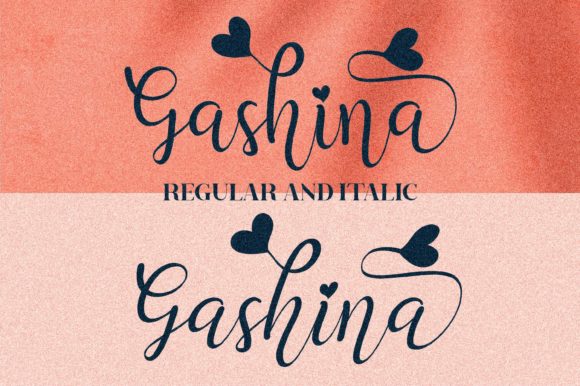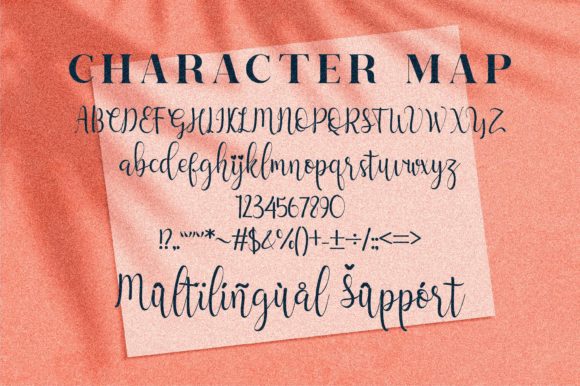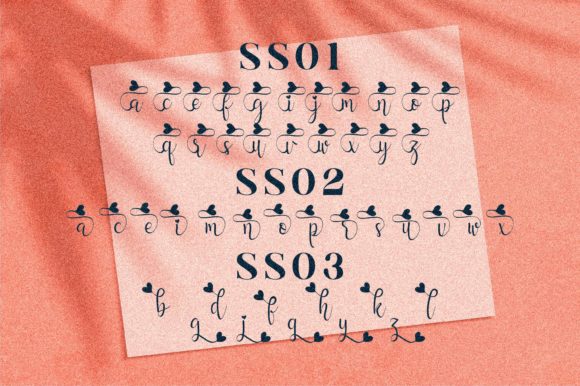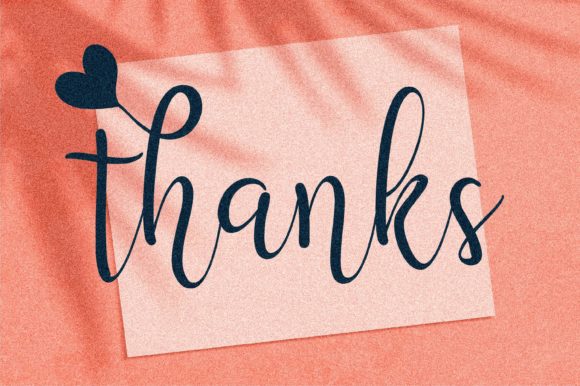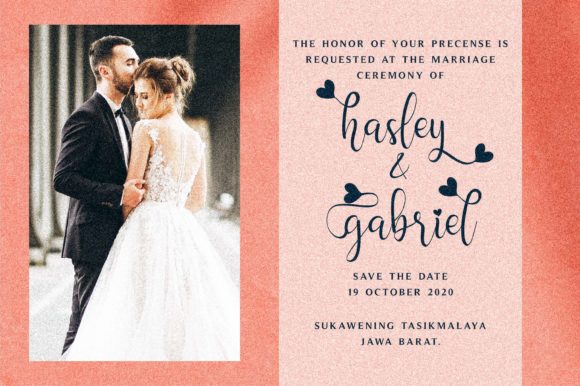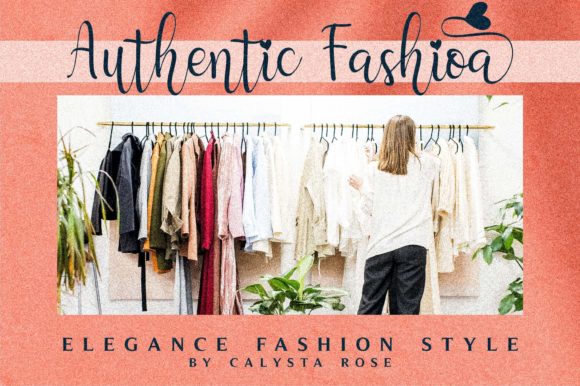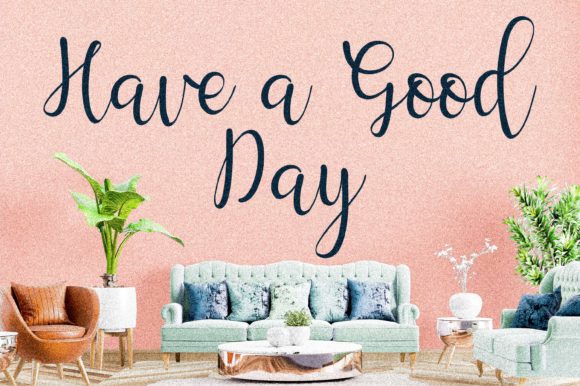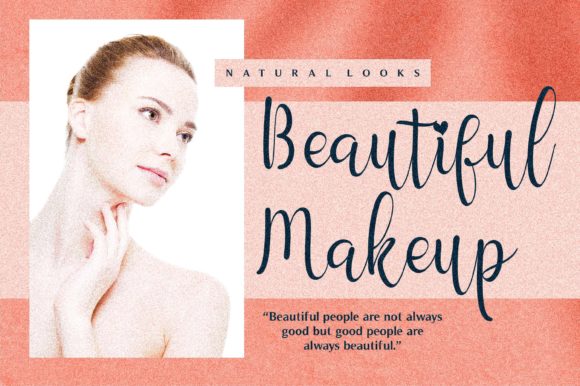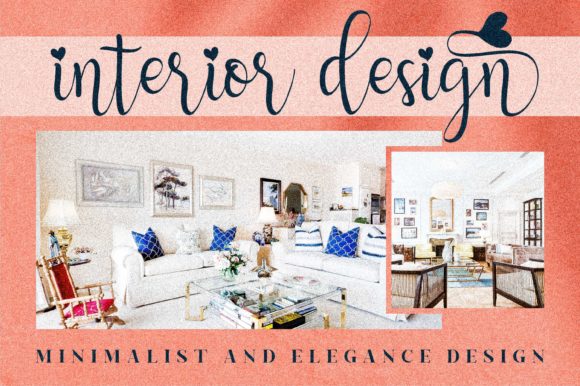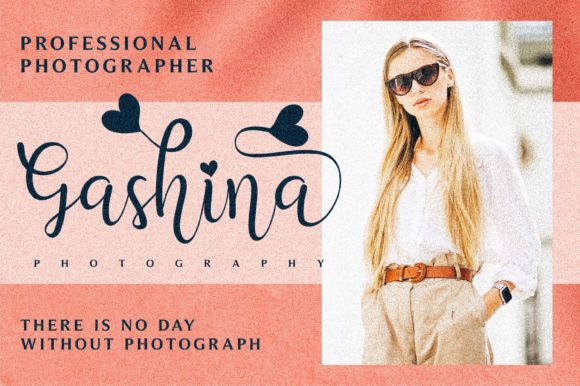
Gashina Font
About Gashina Font
Gashina is a lovely Script Font that includes 2 typefaces and heart swashes to make it a romantic calligraphy font that is suitable for any projects such as logos, branding projects, homeware designs, product packaging, mugs, quotes, posters, shopping bags, t-shirts, book covers, name card, invitation cards, greeting cards, label, photography, watermark, special events, and all your other lovely projects that need a beautiful Script taste.